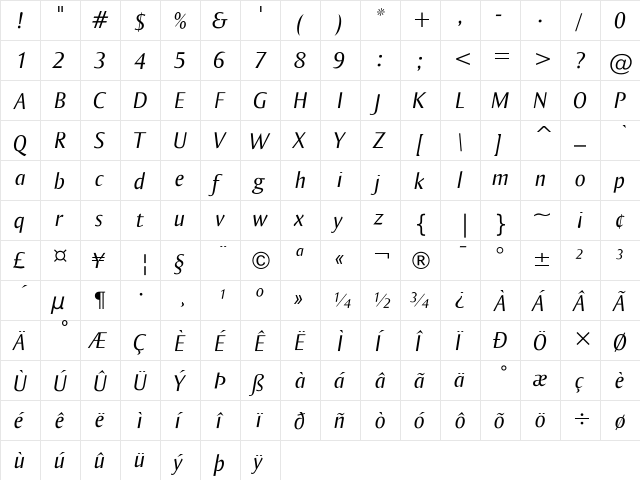
Ogirema Italic
Design Context for Ogirema Typeface
Ogirema is a composed and adaptable typeface that performs quietly and consistently across a wide range of design contexts. The slanted form adds forward momentum and visual energy.
Pro Tip: Use Ogirema for emphasis, pull quotes, and subheadings where its slanted energy can add rhythm to the layout.